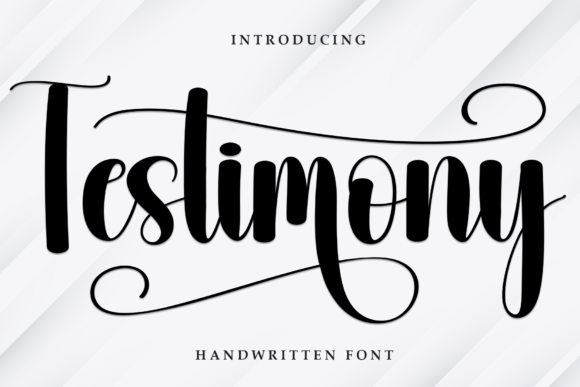
Introducing Testimony, a uniquely stunning handwritten font that's ready to add a splash of charm to your designs. This beautiful script font, crafted by the talented William Jhardy, is a dream come true for web designers, artists, and creative minds alike. It's more than just a font; it's an artistic expression that will elevate your projects with its whimsical and charming touch.
When you choose Testimony, you're choosing a font that speaks to the heart. Its elegant curves and flowing lines dance across the page, capturing the essence of handwritten notes and personal messages. This font will add a touch of intimacy and warmth to your designs, making them stand out from the crowd.
Testimony is not just visually captivating; it's also highly versatile. From wedding invitations that radiate romance to greeting cards that spread joy, Testimony can adapt to your creative vision effortlessly. Its flexible nature makes it perfect for website designs, logos that demand attention, and branding projects that aim to connect with audiences on a deeper level.
With Testimony, you're not just downloading a font; you're embarking on a creative journey. It's a font that sparks inspiration and ignites imagination. It's a font that turns your designs into works of art, leaving a lasting impression on everyone who encounters them.
So, why settle for ordinary fonts when you can embrace the extraordinary? Embrace Testimony and unlock the boundless possibilities of creativity. Let this magical font guide you toward breathtaking designs that inspire, captivate, and truly make a difference.